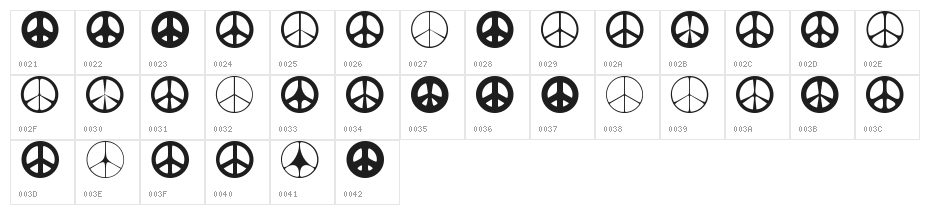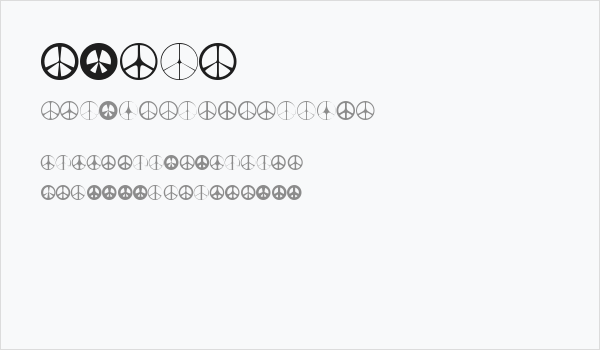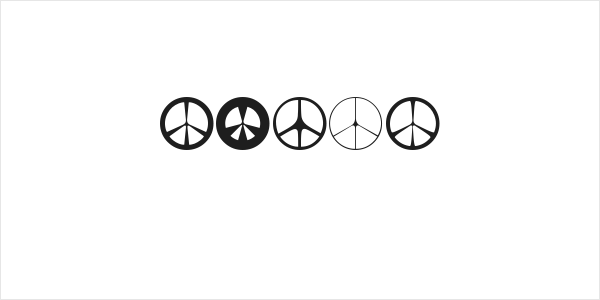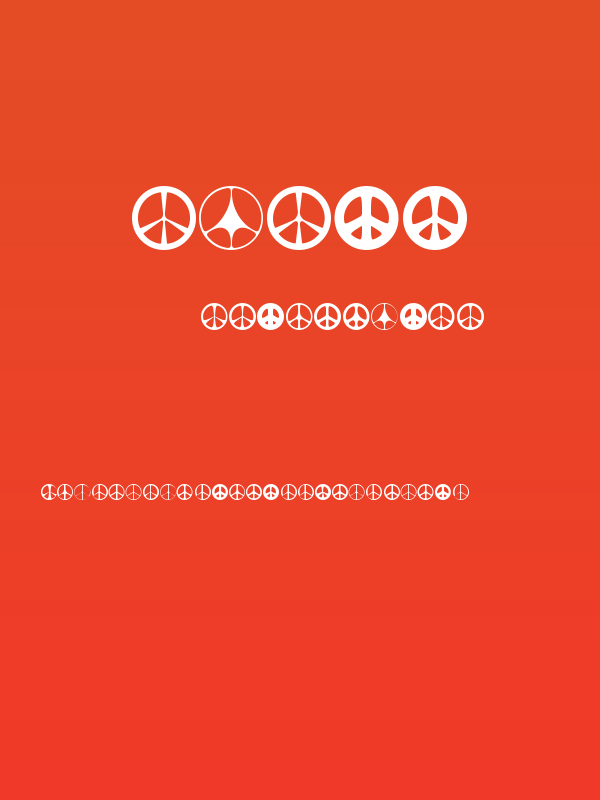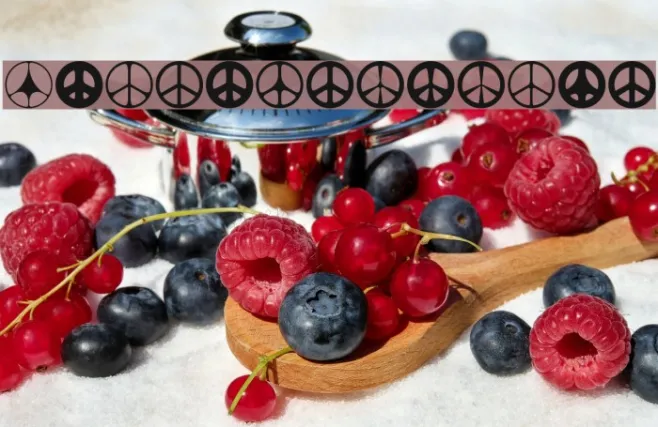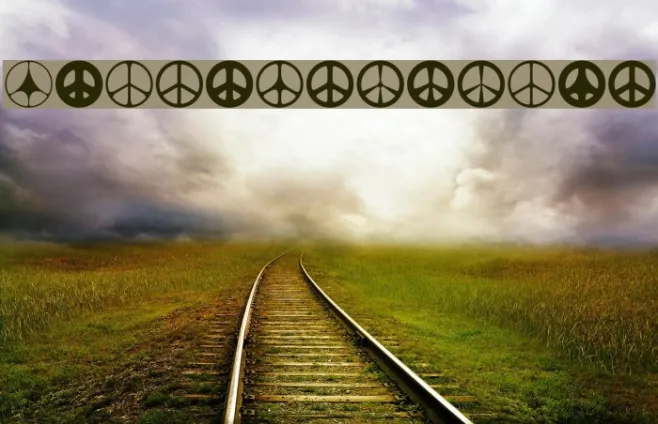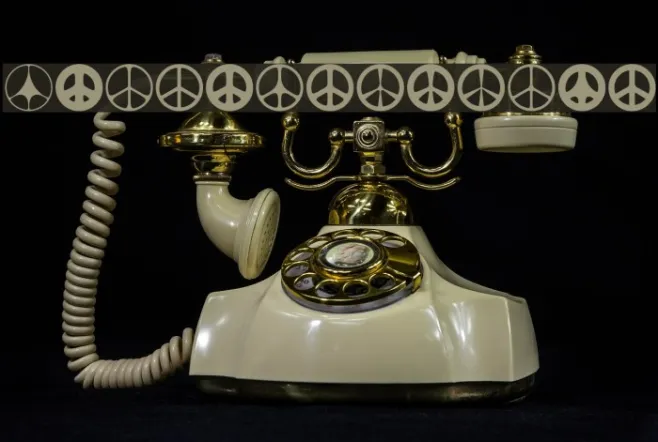
Wahei Font
Wahei Description
A decorative display typeface composed entirely of peace symbol glyphs, alternating between filled and outlined styles, with consistent circular shapes and even spacing.
| Overall Style | Decorative, Modern |
| Use Case | Headlines, Logos, Decorative elements |
| Proposed Projects | Posters, event flyers, social campaigns, themed branding, decorative borders. |